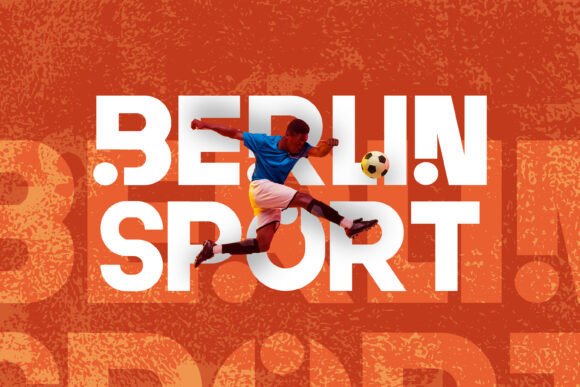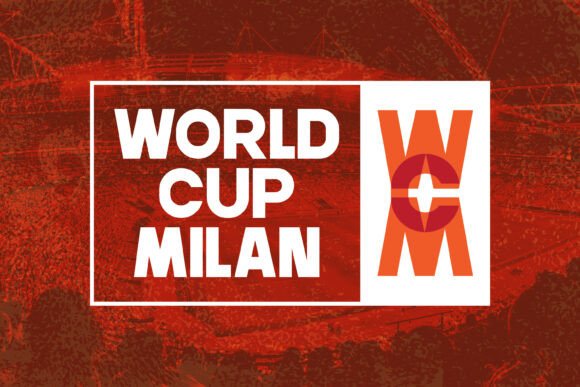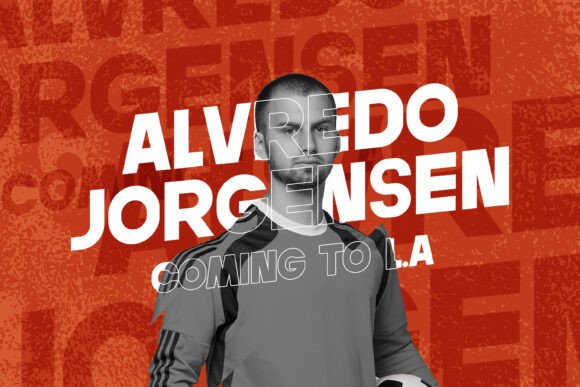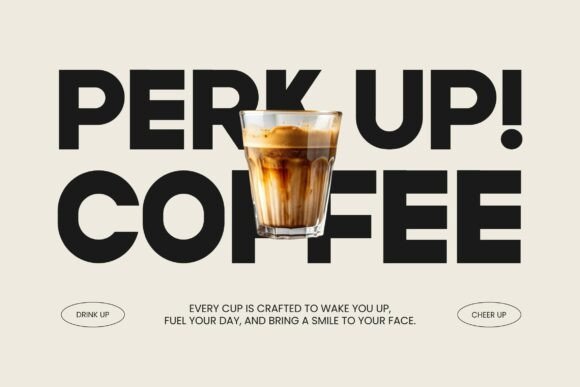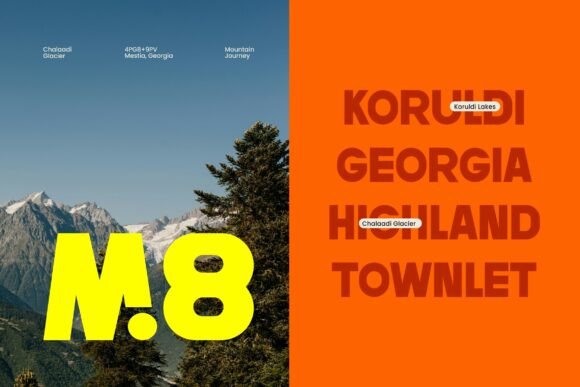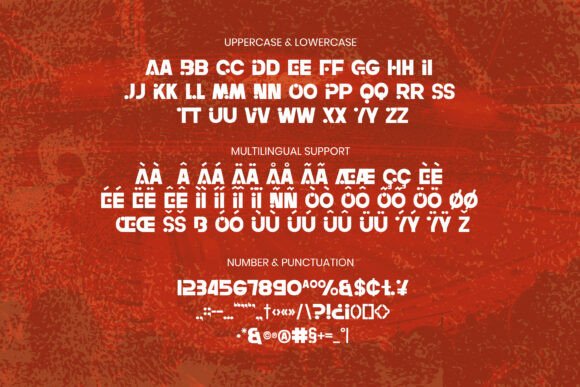
Buleten Font: The Ultimate Modern Sans Sports Font for Designers
In the world of typography, fonts play a crucial role in conveying the tone and personality of a brand or design. For designers and crafters looking for a bold and modern sans serif font that exudes a sporty vibe, Buleten Font is an excellent choice. In this article, we’ll dive into the features and benefits of Buleten Font, and explore how it can elevate your designs to the next level.
What is Buleten Font?
Buleten modern sans sports font is a great looking bold sans serif font with a modern look and feel. Its strong and bold typography is designed to capture the corners and express the strength of a brand or design. With its cheerful and sporty vibes, Buleten Font is perfect for spreading playful energy for games, sports, and other high-energy activities.
Key Features of Buleten Font
- Bold and Modern Design: Buleten Font boasts a bold and modern sans serif design that’s perfect for making a statement.
- Sporty Vibe: The font’s cheerful and sporty vibes make it ideal for sports-related designs, such as posters, jerseys, and sports slogans.
- Strong and Bold Typography: Buleten Font’s typography is designed to capture the corners and express strength, making it perfect for designs that need a strong-bold vibe.
- Versatile: This font is suitable for various design applications, including posters, jersey design, sports slogans, and any type of advertising purpose.
Benefits of Using Buleten Font
So, why choose Buleten Font for your design projects? Here are some benefits of using this amazing font:
- Instant Recognition: Buleten Font’s bold and modern design ensures instant recognition and attention-grabbing headlines.
- Professional Look: The font’s strong and bold typography gives your designs a professional and polished look.
- Emotional Connection: Buleten Font’s sporty vibe creates an emotional connection with your audience, making your designs more relatable and engaging.
- Time-Saving: With Buleten Font, you can save time and effort in creating custom designs from scratch.
Design Applications for Buleten Font
Buleten Font is a versatile font that can be used in various design applications, including:
- Poster Design: Create eye-catching posters for sports events, fitness classes, or outdoor activities.
- Jersey Design: Design professional-looking jerseys for sports teams with Buleten Font.
- Sports Slogans: Create motivational sports slogans that inspire athletes and teams.
- Advertising: Use Buleten Font for advertising purposes, such as billboards, flyers, or social media ads.
Tips for Using Buleten Font Effectively
To get the most out of Buleten Font, here are some tips for using it effectively:
- Pair with Other Fonts: Pair Buleten Font with other fonts to create a unique and visually appealing design.
- Experiment with Colors: Experiment with different colors to find the perfect combination that matches your brand or design.
- Keep it Simple: Keep your design simple and clean to ensure Buleten Font stands out.
- Use it Consistently: Use Buleten Font consistently across your designs to create a strong brand identity.
In conclusion, Buleten Font is an excellent choice for designers and crafters looking for a bold and modern sans sports font. Its strong and bold typography, sporty vibe, and versatility make it perfect for various design applications. By following the tips outlined in this article, you can use Buleten Font effectively and elevate your designs to the next level.